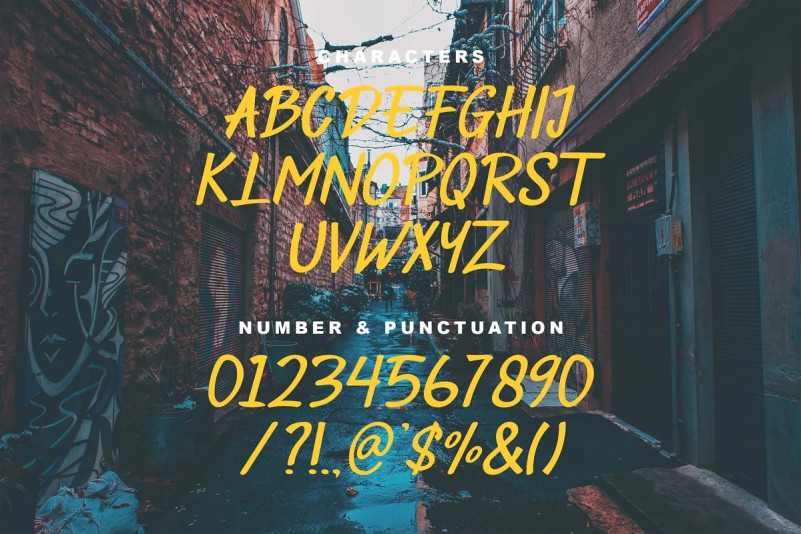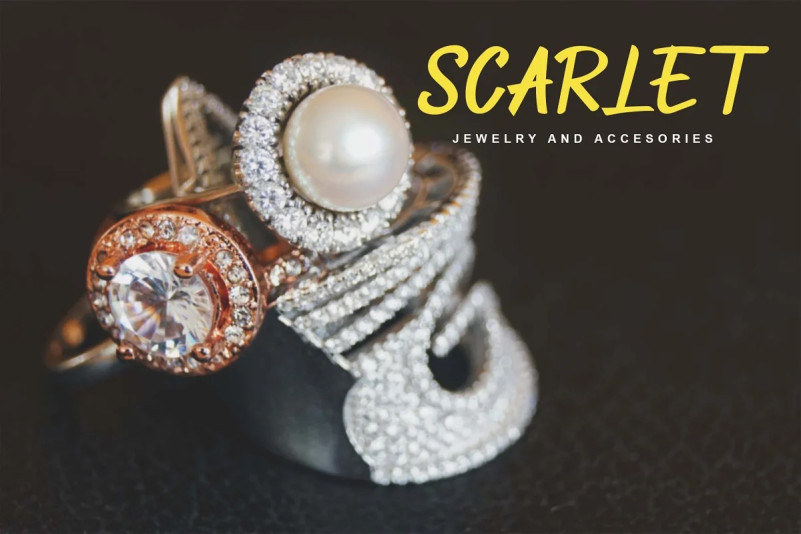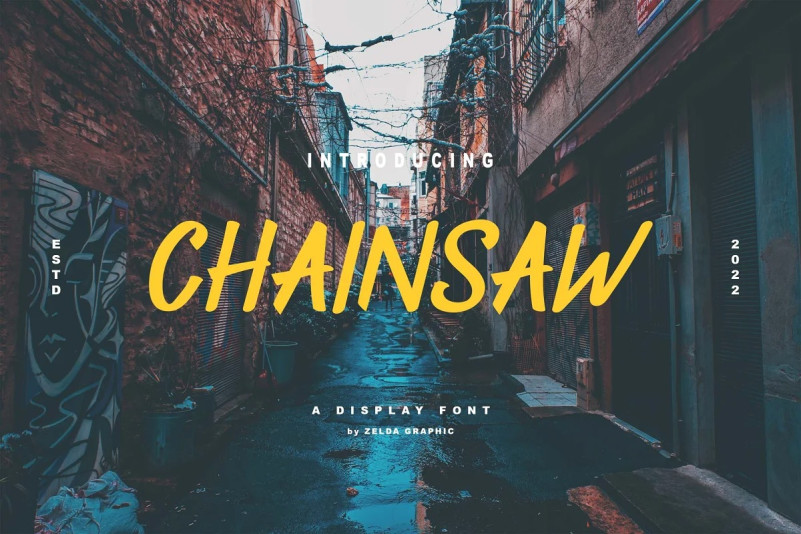
Chainsaw Font
Chainsaw Brush Font is a modern and awesome handwriting font with a natural style. This font is suitable for your current or classic design: Signature. Logo. Branding. Invitation. Blog Headline and many more.